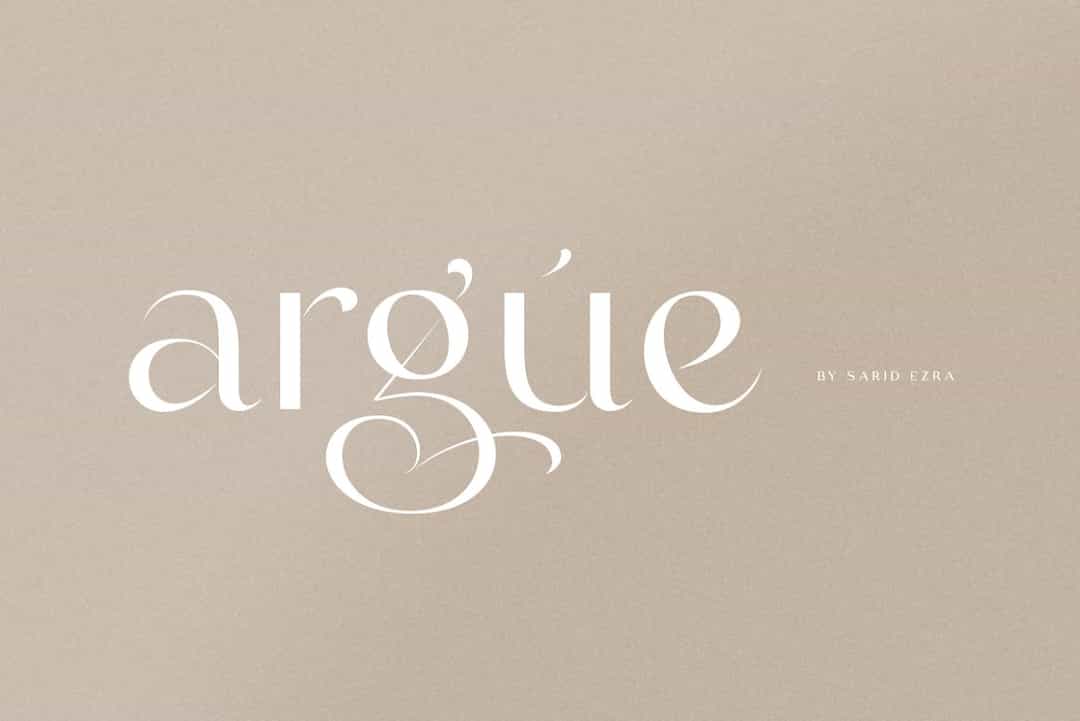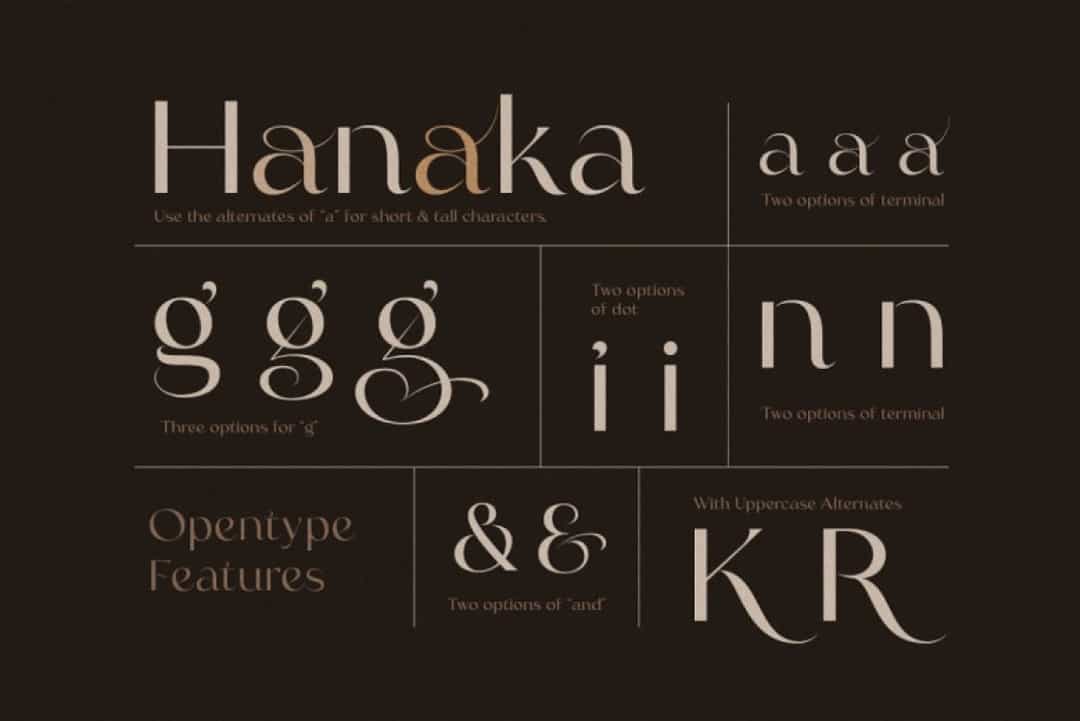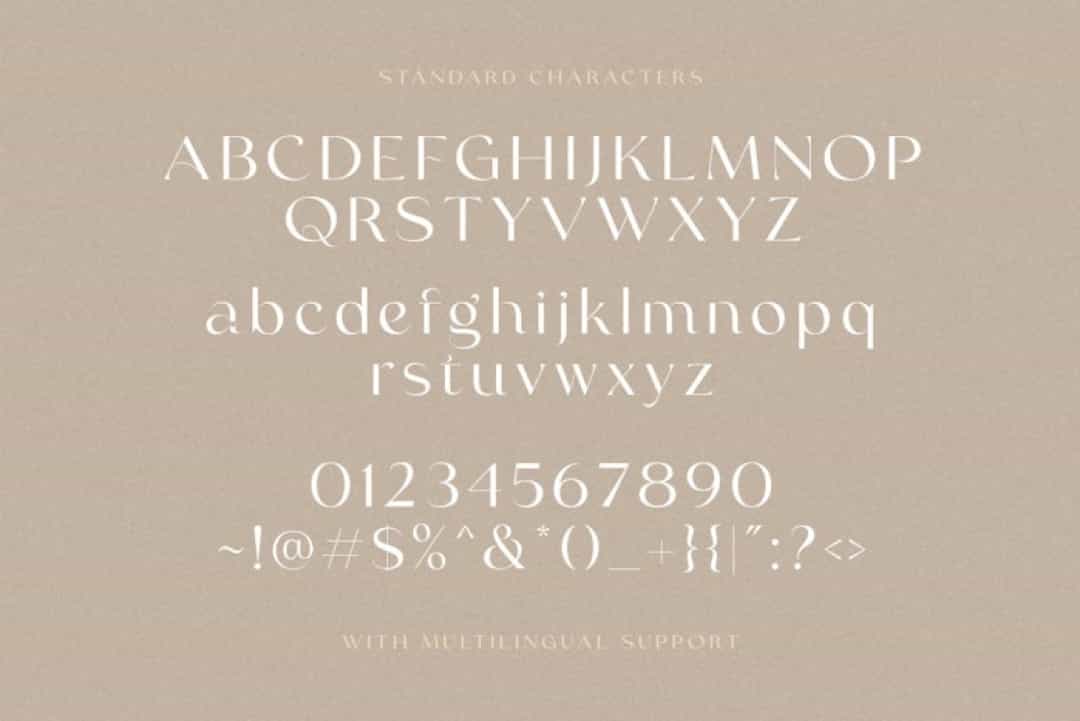
Argue is a beautiful contemporary Sans Serif font with a lot of choices that will always help to make logos or presentations more appealing and stand out more! Wedding invitations or for your brand – that’s what you can use it for!